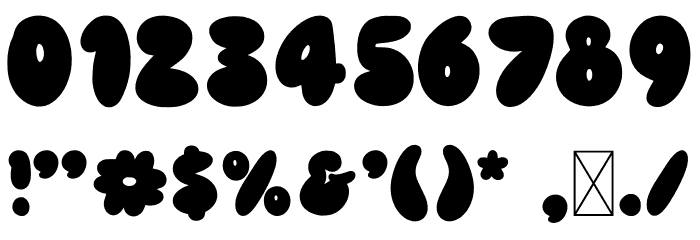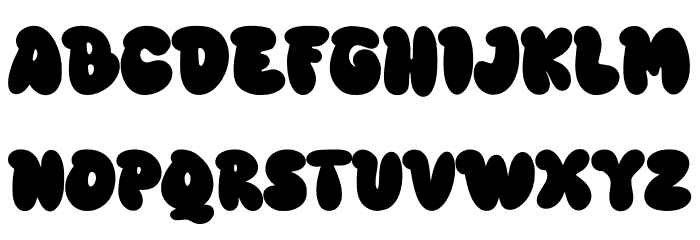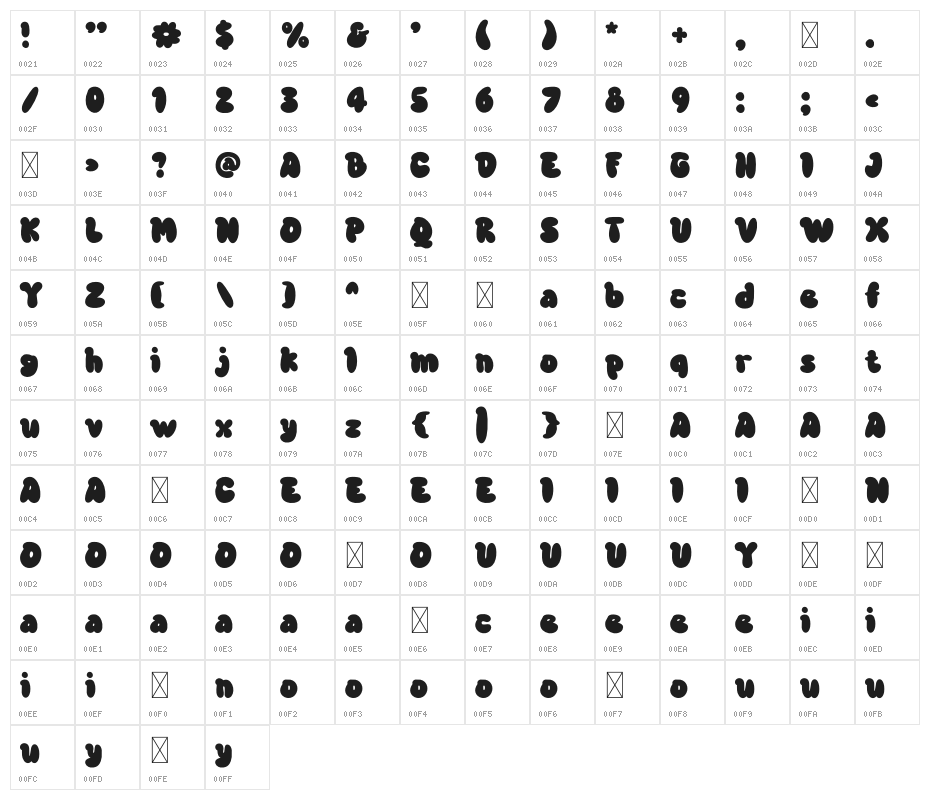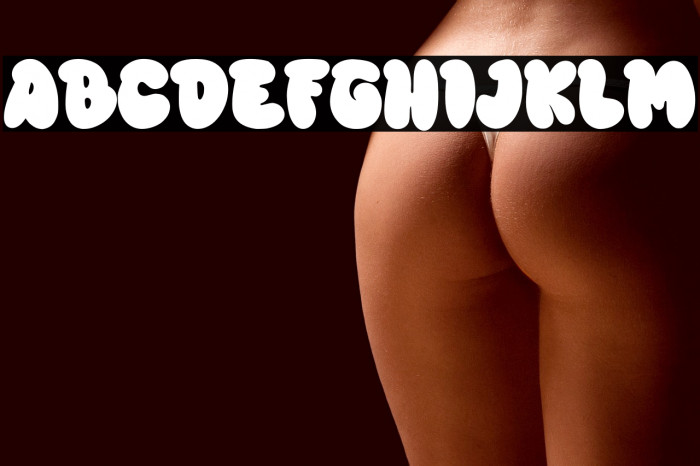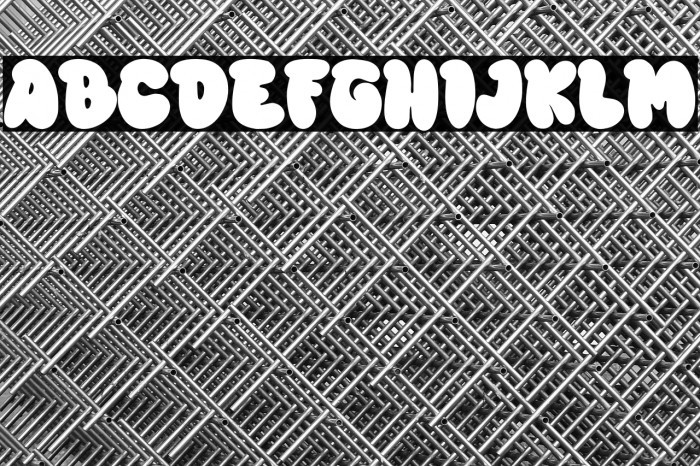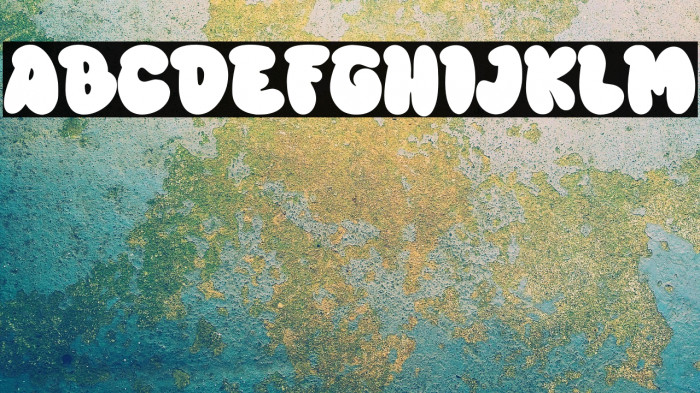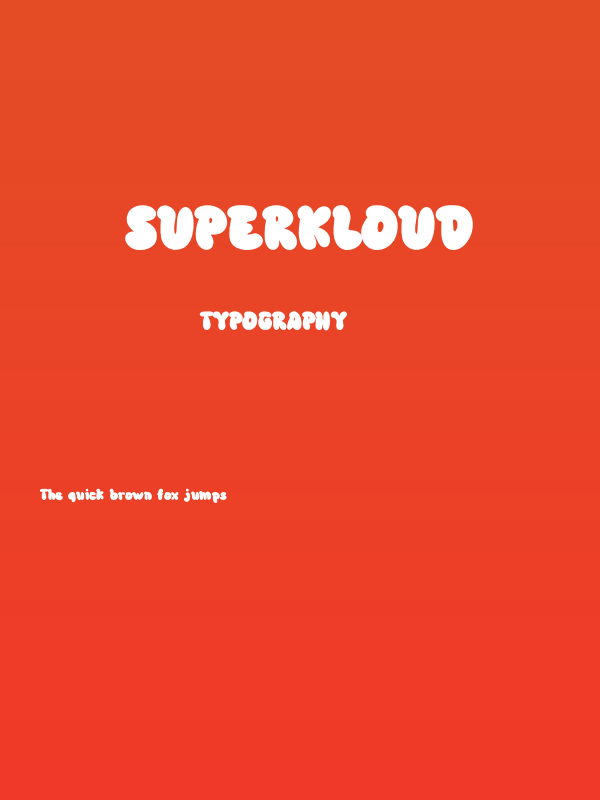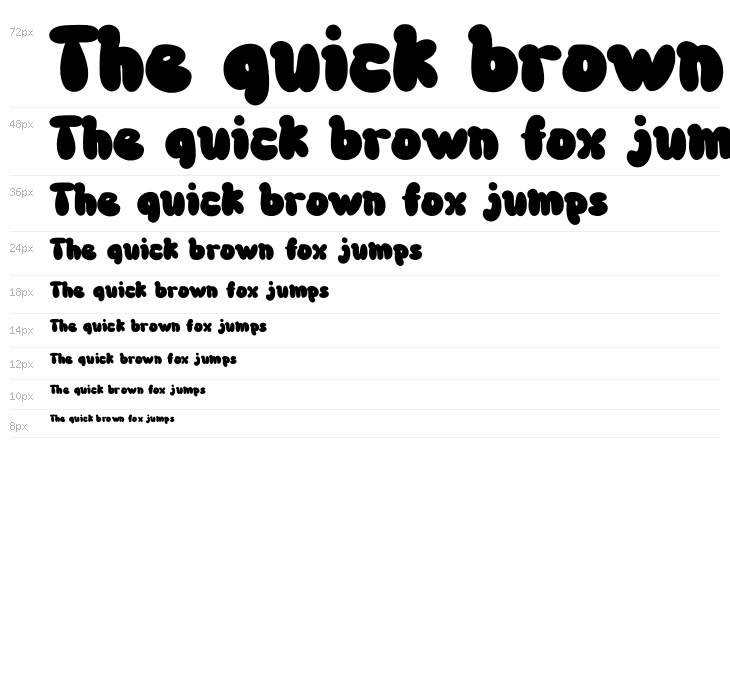
SuperKloud Font
SuperKloud Description
This playful and bold font features thick, rounded characters that create a sense of fun and whimsy. The letters are heavily weighted with a bubbly appearance, making them stand out prominently. The overall design is cohesive, with consistent stroke thickness throughout each character, contributing to its unique and eye-catching style. The font's rounded edges and lack of sharp angles give it a friendly and approachable feel, ideal for projects that aim to convey a sense of joy and creativity. Its distinctive style makes it suitable for attention-grabbing headlines and playful branding.
| Overall Style | Playful, Fun, Whimsical |
| Proposed Projects | Ideal for children's books, playful branding, party invitations, and eye-catching headlines. |